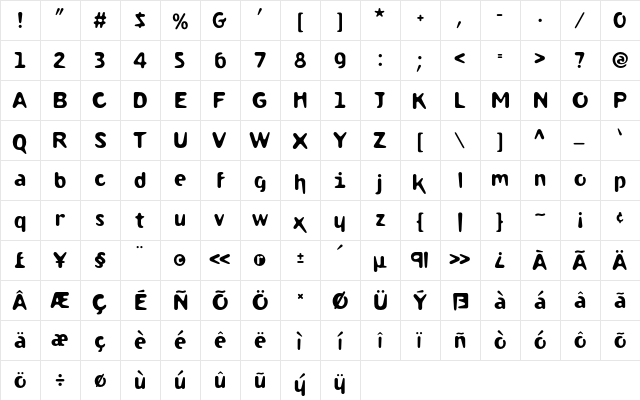
Droplet Regular Font Preview
Droplet Regular
Design Context for Droplet Typeface
Droplet is a composed and adaptable typeface that performs quietly and consistently across a wide range of design contexts.